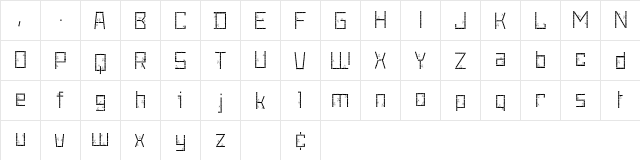
Pring Regular
Design Context for Pring Typeface
Pring offers clean, dependable letterforms without strong stylistic allegiance, making it a practical choice for designers who need flexibility.